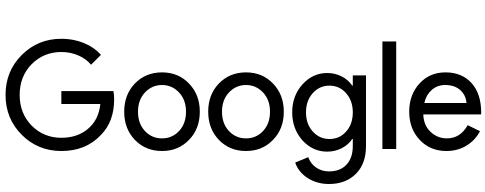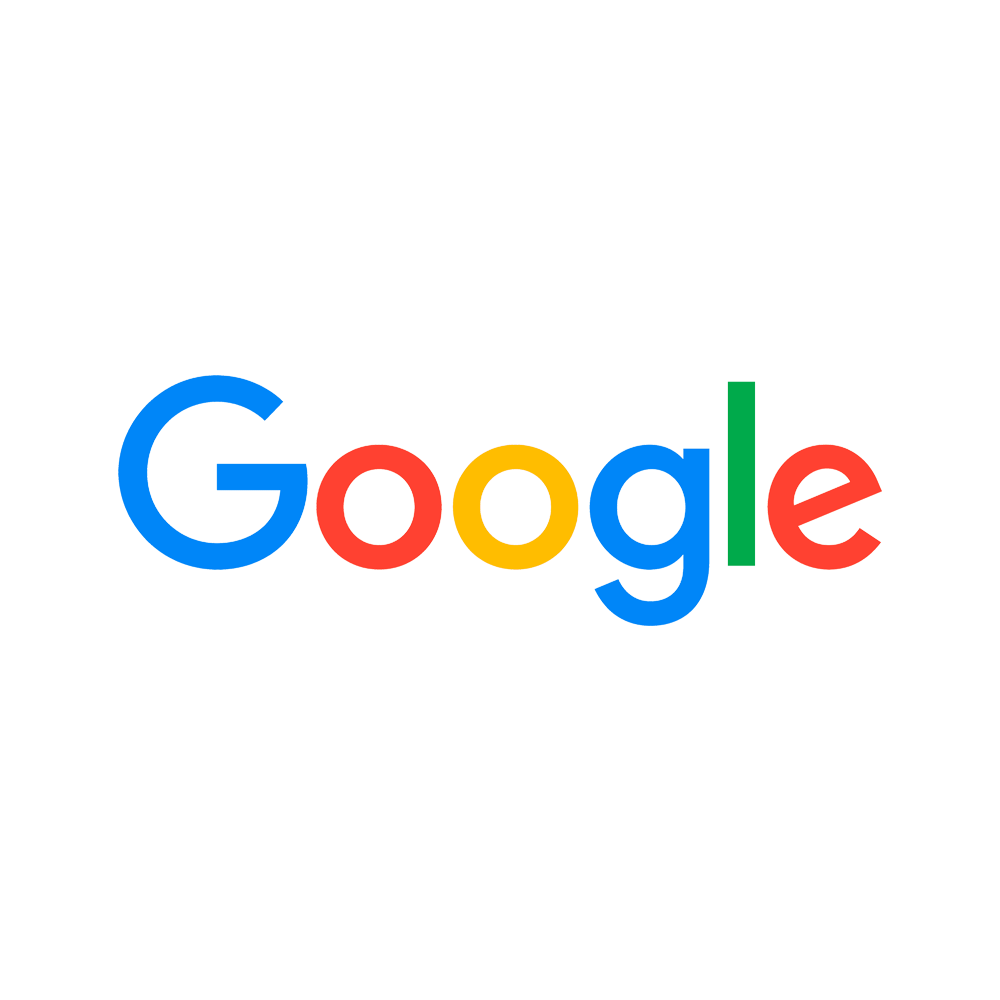
Google Logo Font
The Google logo features the Product Sans font. Product Sans is a geometric sans-serif typeface created by Google in 2015, primarily used for the company's branding and logo designs, characterized by its friendly and modern appearance.
The old Google logo, designed by Ruth Kedar, utilizes lettering that resembles the Catull BQ Regular font, created by Gustav Jaeger for Berthold in 1982.